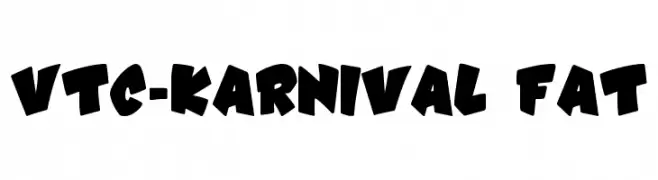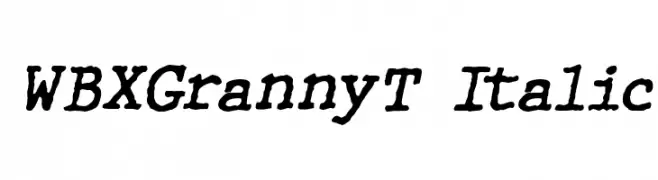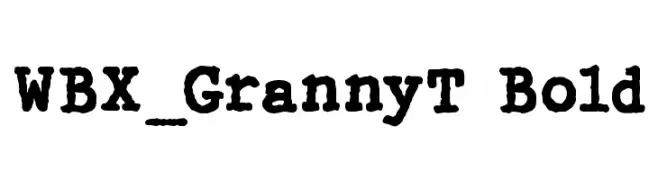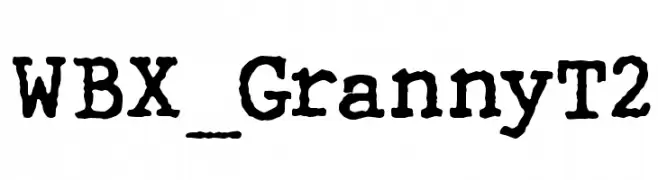
A playful, outlined font with a hand-drawn, casual style.
A playful, bold font with chunky, whimsical characters.
A bold, playful, and hand-drawn style with a cartoonish appearance.
A bold, italicized font with a hand-drawn, textured style.
A bold, vintage typewriter-style font with a textured, distressed look.
A bold, textured font with a vintage, handcrafted appearance.
A bold, wide, and playful font with a comic-inspired style.
A bold, playful font with rounded edges and a hand-drawn style.
A bold, wide, and playful font with a cartoonish style.
A bold, playful font with rounded, slanted letters ideal for comic-style designs.